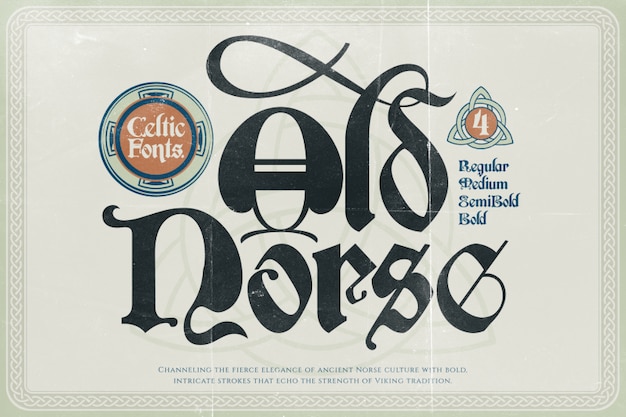
Old Norse Font
Burntilldead
Old Norse is a vintage-inspired font that channels the rugged spirit of Nordic and Viking heritage. Its antique, Celtic-style letterforms evoke ancient runes and historical manuscripts, making it perfect for fantasy, historical, or rustic designs. Old Norse brings a timeless, powerful aesthetic to logos, posters, and projects rooted in tradition and mythology.